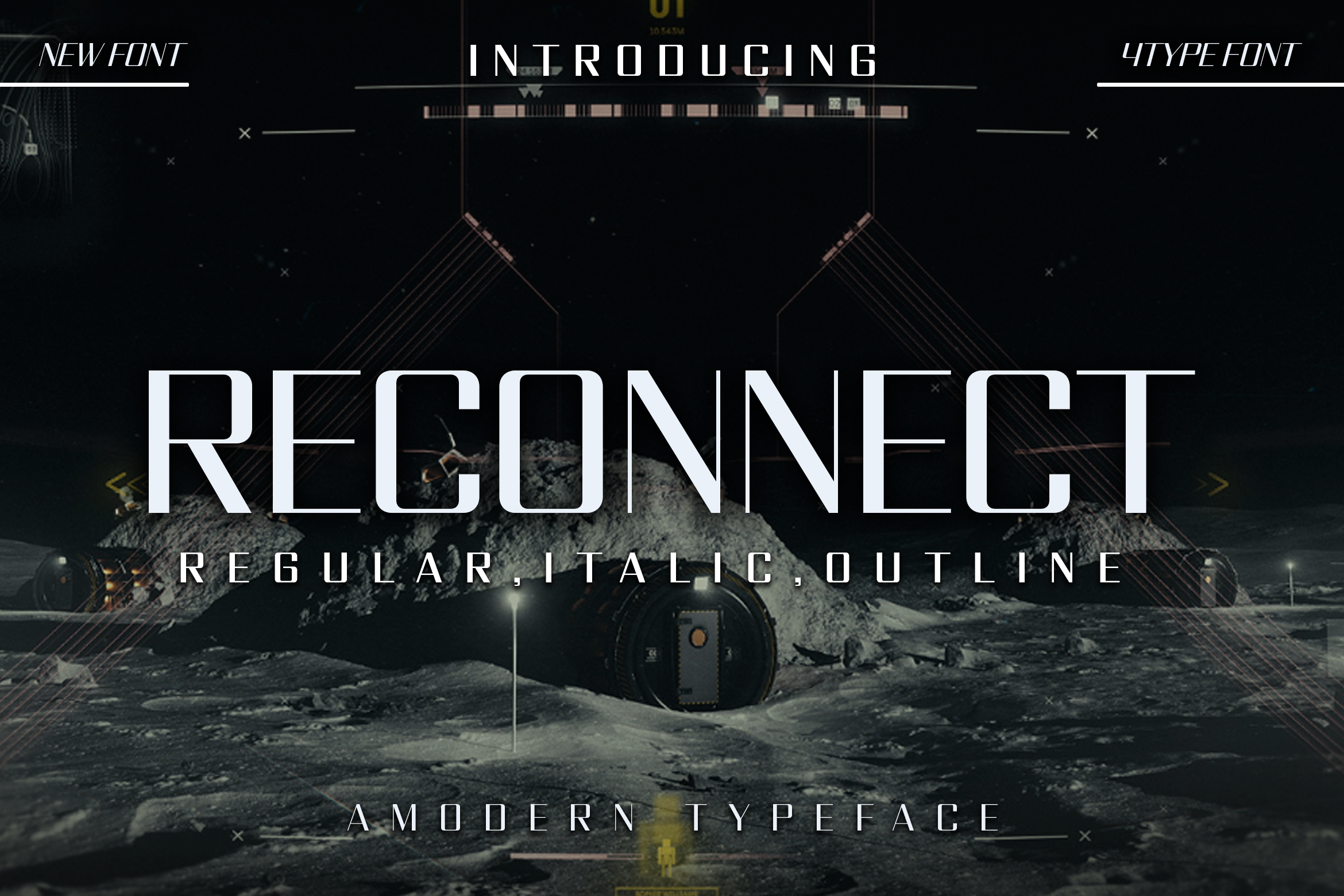
Reconnect - A Modern Typeface
Reconnect makes your typography design more futuristic. Emerge your design, whether you’re looking for a font to design a gaming project, music flyers, movie posters, or other graphics you’ll find plenty of choices on this list. This font is PUA encoded which means you can access all of the amazing glyphs and ligatures with ease!